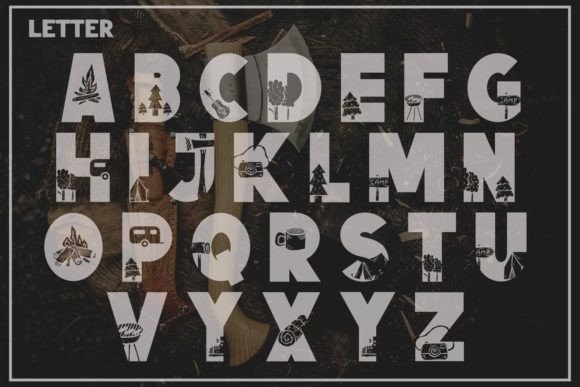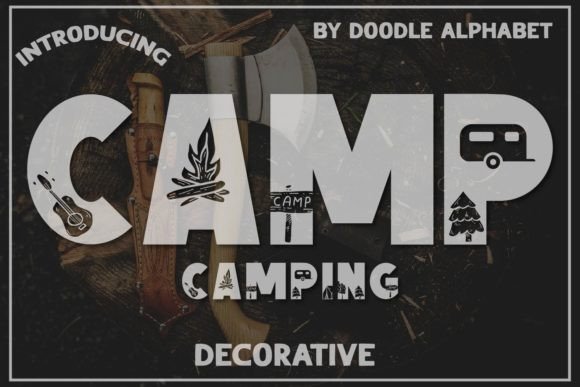
Camping Font: Add a Touch of Youth and Joy to Your Designs
Are you looking for a font that can add a playful and adventurous touch to your designs? Look no further than the Camping Font! This cool, incredibly cute, and assertive decorative font is perfect for party invitations, gatherings, and any design that requires a touch of youth and joy.
What is Camping Font?
Camping Font is a unique and creative typeface that is inspired by the great outdoors. Its playful and adventurous design makes it perfect for designs that require a fun and youthful touch. The font is highly legible and can be used for a variety of design projects, from party invitations to posters, and even social media graphics.
Features of Camping Font
- Playful and Adventurous Design: Camping Font has a unique and creative design that is perfect for adding a touch of fun and adventure to your designs.
- Highly Legible: The font is highly legible, making it perfect for use in a variety of design projects, from party invitations to posters.
- Cute and Assertive: Camping Font is an incredibly cute and assertive font that can add a touch of personality to your designs.
- Perfect for Designers and Crafters: This font is perfect for designers and crafters who are looking for a unique and creative typeface to add to their designs.
Uses of Camping Font
Camping Font can be used for a variety of design projects, including:
- Party Invitations: Add a touch of fun and adventure to your party invitations with Camping Font.
- Gatherings and Events: Use Camping Font to create eye-catching posters and flyers for gatherings and events.
- Social Media Graphics: Add a touch of personality to your social media graphics with Camping Font.
- Posters and Flyers: Use Camping Font to create eye-catching posters and flyers for a variety of occasions.
Why Choose Camping Font?
There are many reasons why you should choose Camping Font for your design projects. Here are a few:
- Unique and Creative Design: Camping Font has a unique and creative design that will set your designs apart from the rest.
- Highly Versatile: The font is highly versatile and can be used for a variety of design projects.
- Perfect for Adding a Touch of Youth and Joy: This font is perfect for adding a touch of youth and joy to your designs.
| Author | Doodle Alphabet |
Camping Font is a unique and creative decorative font that is perfect for adding a touch of youth and joy to your designs. Its playful and adventurous design makes it perfect for party invitations, gatherings, and any design that requires a fun and youthful touch. With its highly legible design and ease of use, Camping Font is a great choice for designers and crafters who are looking for a font that can add a touch of personality to their designs.
If you’re looking for a font that can add a touch of fun and adventure to your designs, look no further than Camping Font. With its unique and creative design, highly legible typeface, and ease of use, Camping Font is the perfect choice for designers and crafters who want to add a touch of youth and joy to their designs.